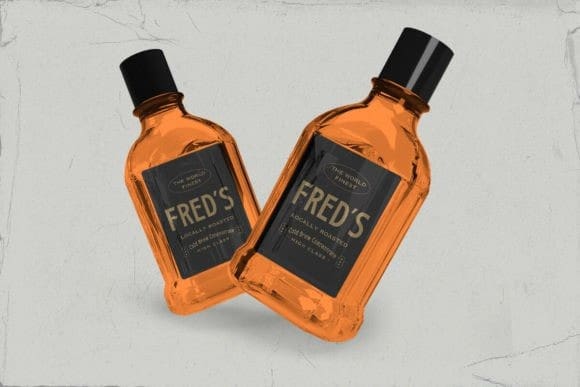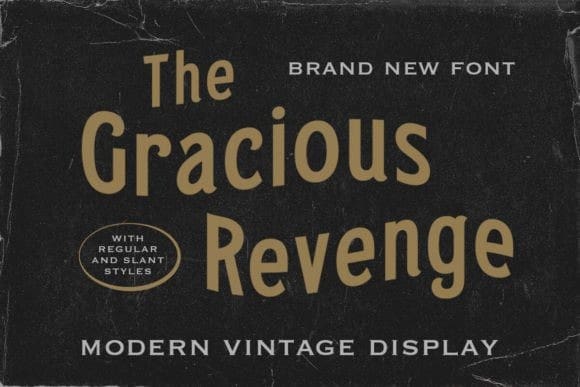
The Gracious Revenge Font
The Gracious Revenge Font is a stylish, vintage sans display typeface that exudes timeless elegance and sophistication. With its clean lines and subtle vintage charm, it captures the essence of classic design. Perfect for branding, logos, and editorial projects, The GraciousRevenge adds a touch of retro flair to any composition.